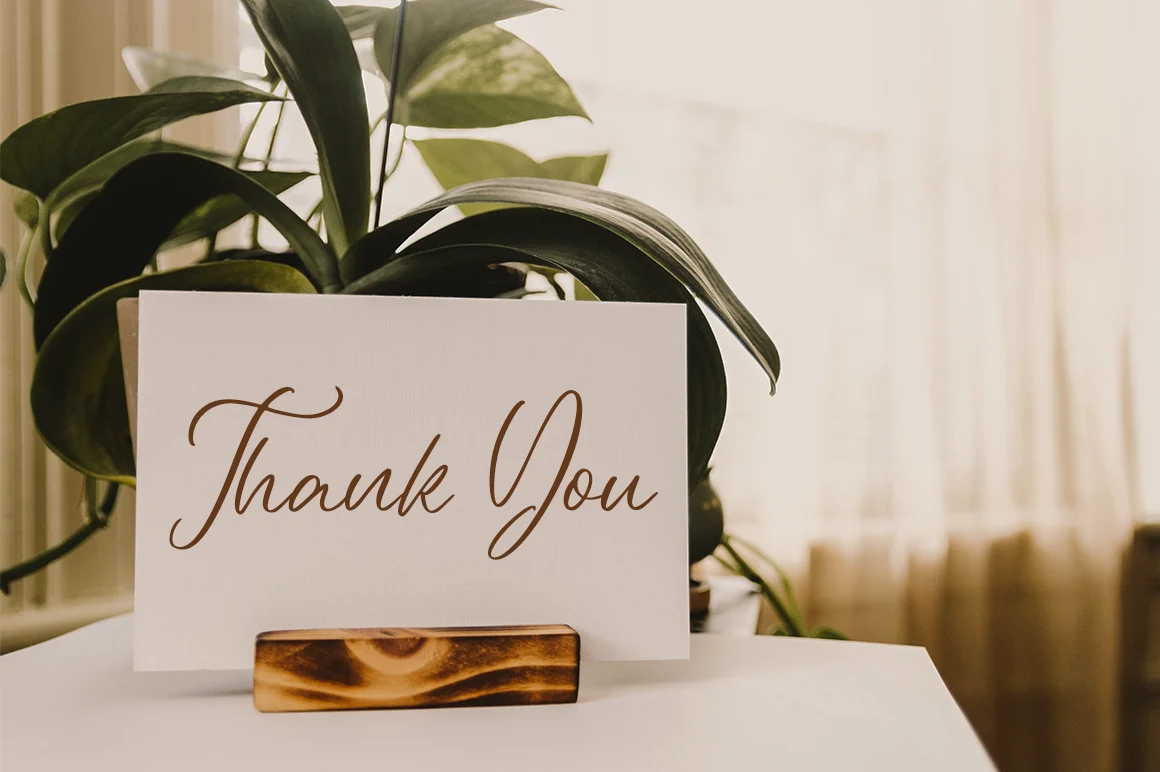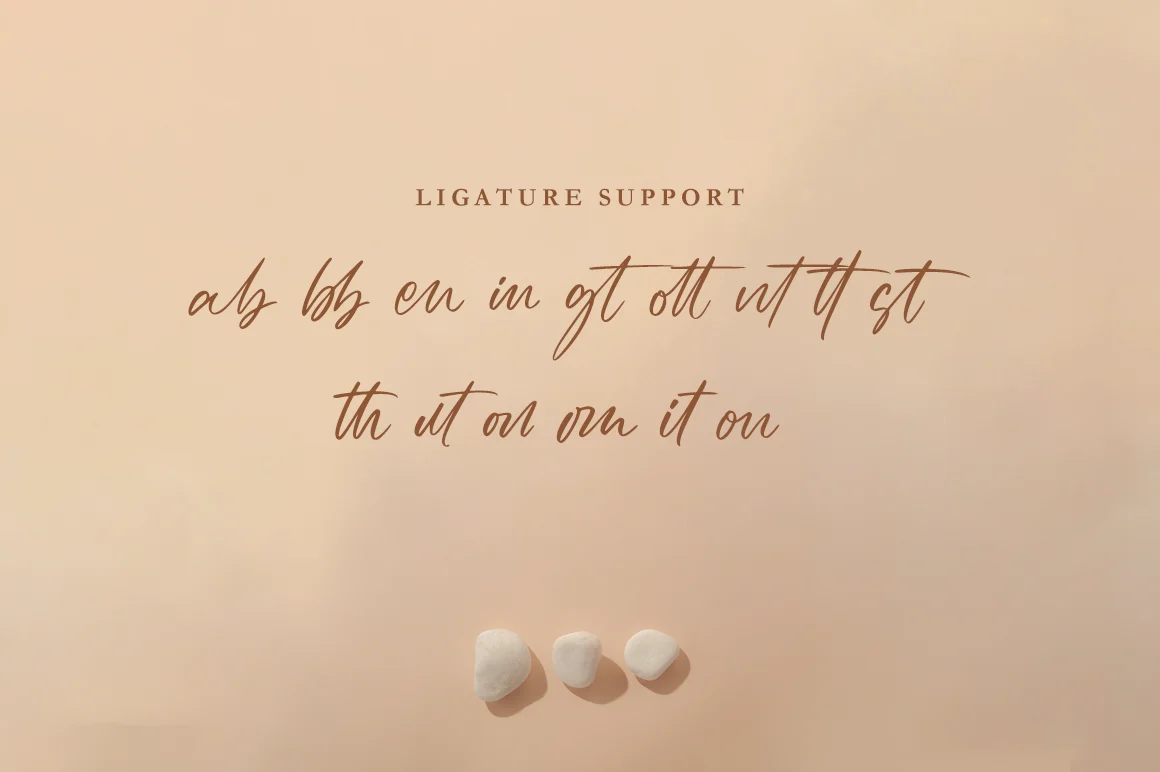
Feminista – Fashion Font
SiddiqStudio
Feminista is a beautiful and refined script font. It has a classy, elegant and modern look that can be used for logos, branding, invitations, stationery, wedding designs, social media posts, and much more!
- Ligatures, Swash, Alternates
- Letters, Numbers, punctuation